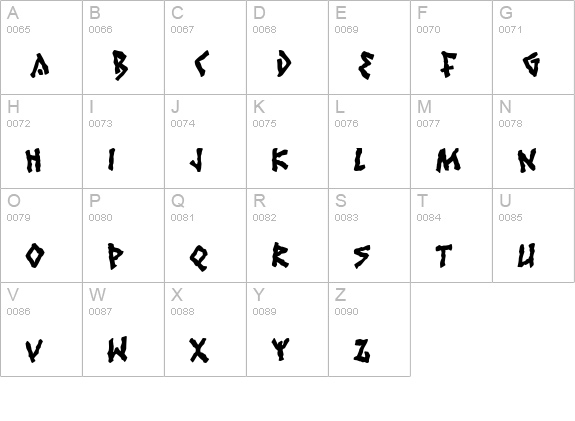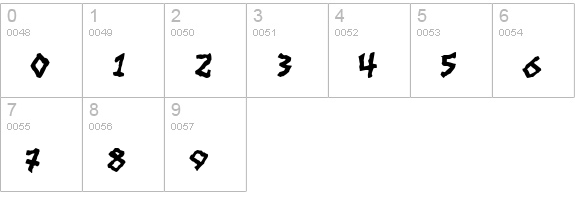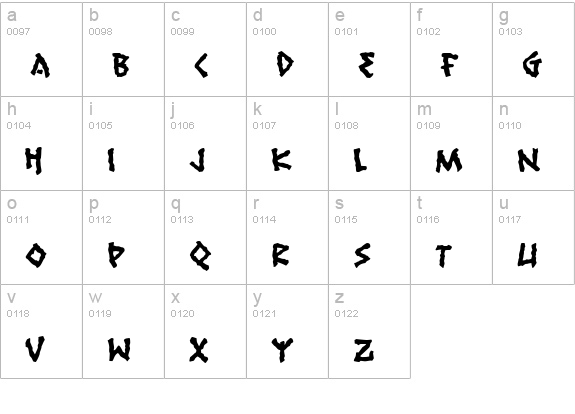
Ruinik Font Details
Introducing Ruinik font, a captivating and versatile typeface that will bring a touch of elegance and modernity to your designs. Inspired by ancient runes and infused with a contemporary twist, Ruinik is the perfect choice for adding a mystical and mysterious vibe to your projects. This unique font features intricate details and sharp edges that give it a bold and striking appearance. Whether you're creating logos, posters, banners, or any other design project, Ruinik will make a powerful statement and leave a lasting impression on your audience. Best of all, Ruinik font is completely free to download at FontsMarket.com. So you can easily add this stunning typeface to your collection and start using it in your designs right away. Don't miss out on the opportunity to enhance your creative projects with the captivating beauty of Ruinik font. Download it now and let your imagination run wild!